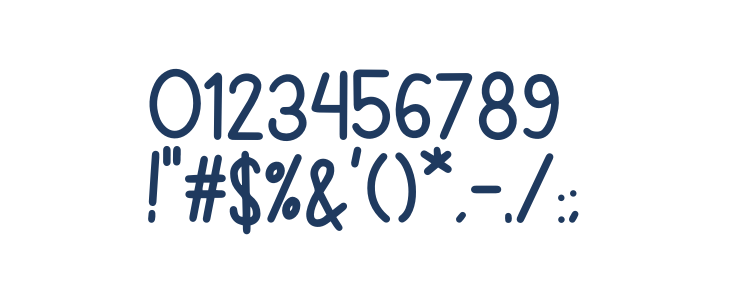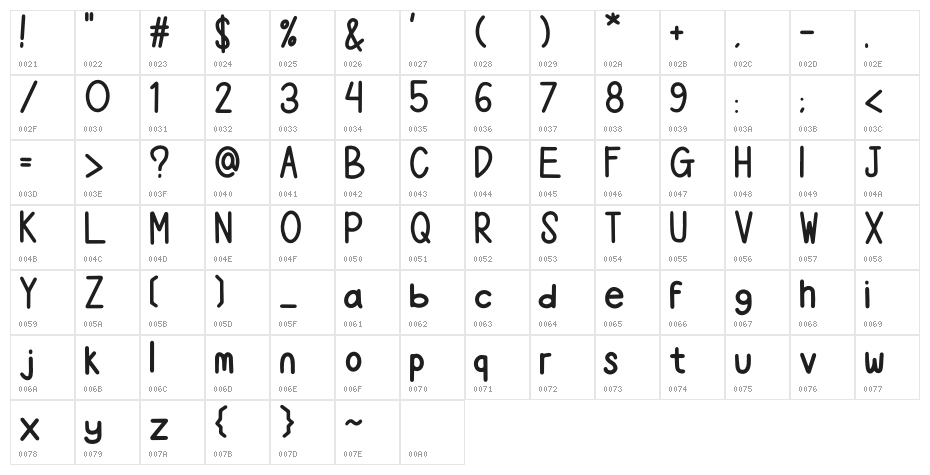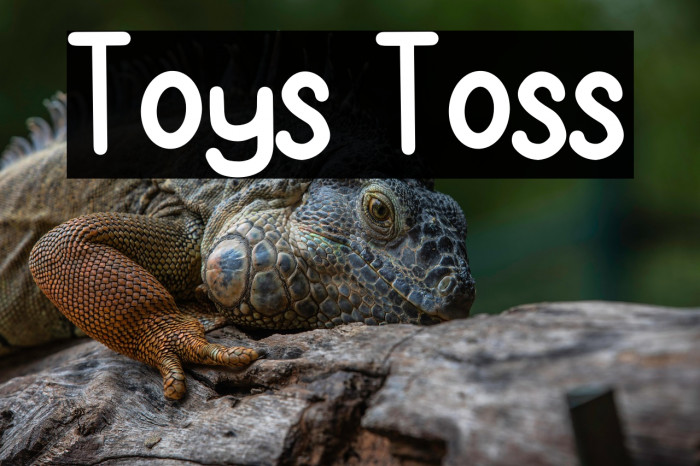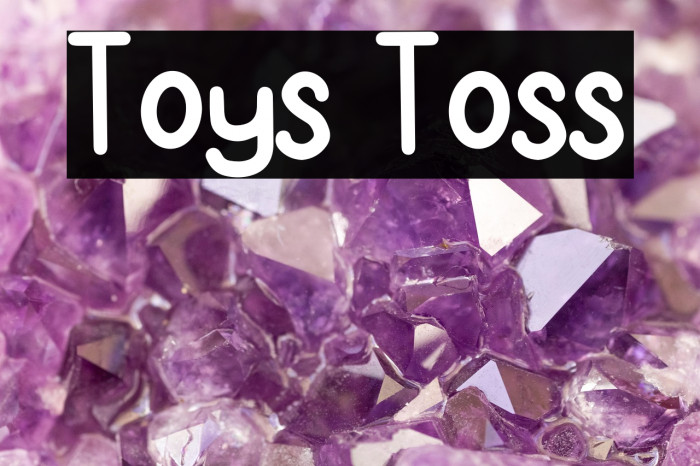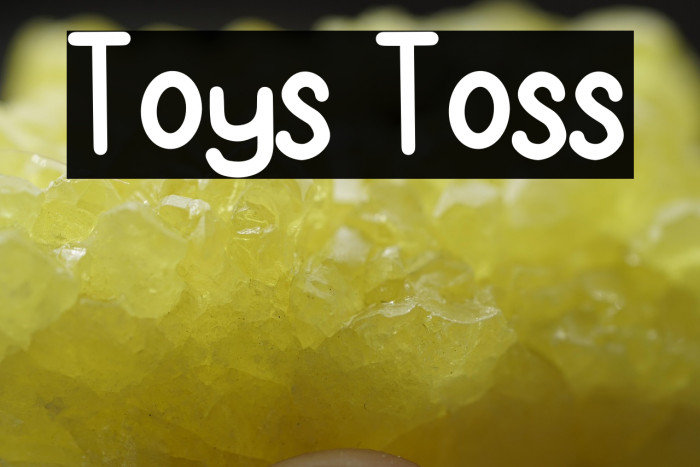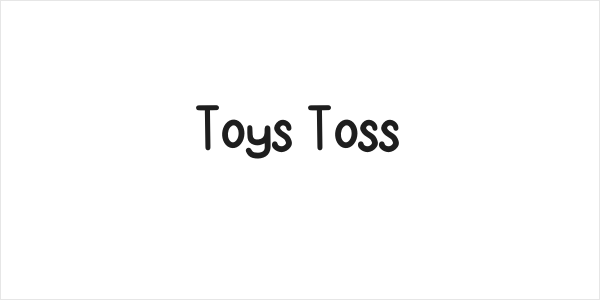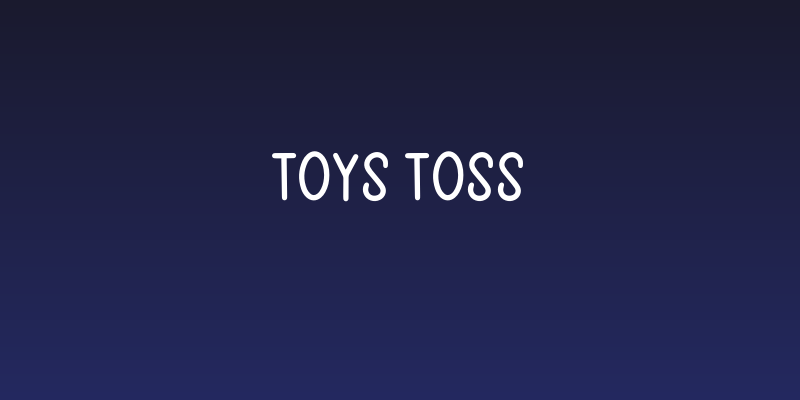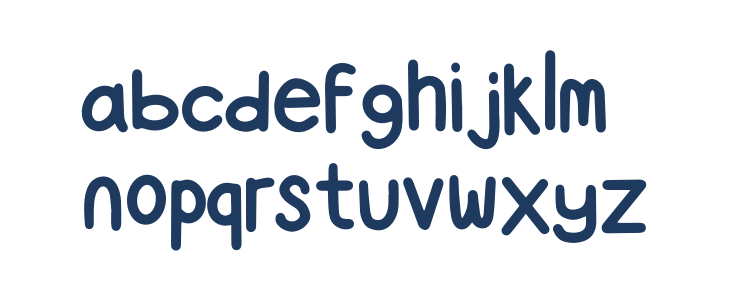
Toys Toss Font
Toys Toss Description
This playful and whimsical font features a hand-drawn style with rounded edges and a casual, friendly appearance. The letters are slightly irregular, giving it a charming, informal look that is perfect for projects aimed at children or creative endeavors. The uppercase and lowercase letters maintain a consistent style, with a slight variation in height and width that adds to its quirky character. The numbers and special characters are equally playful, making this font versatile for various uses. Its bold strokes and rounded forms make it highly legible, even at smaller sizes.
| Proposed Projects | Ideal for children's books, playful branding, greeting cards, and creative posters. |